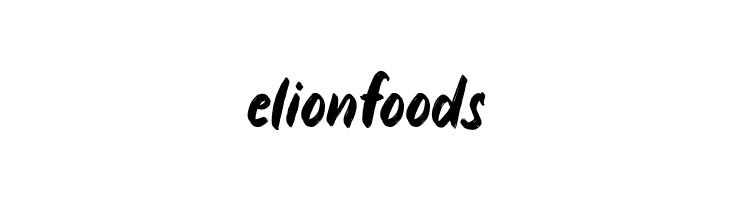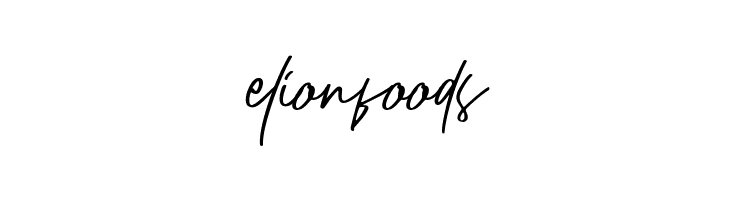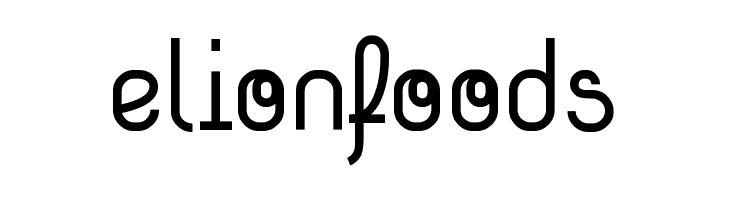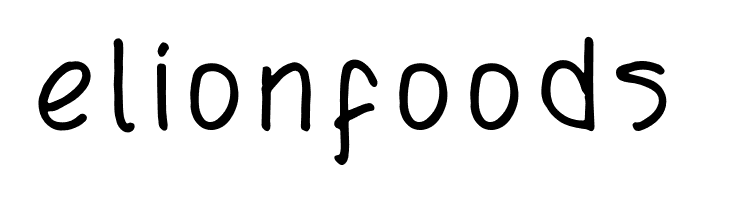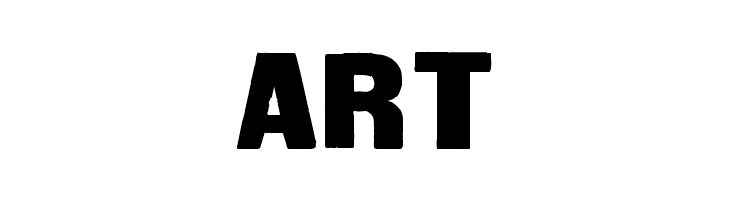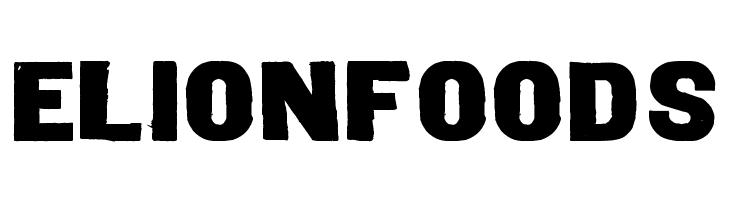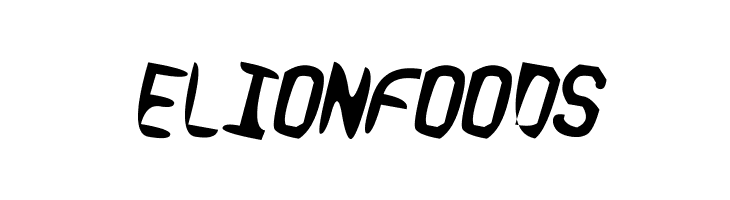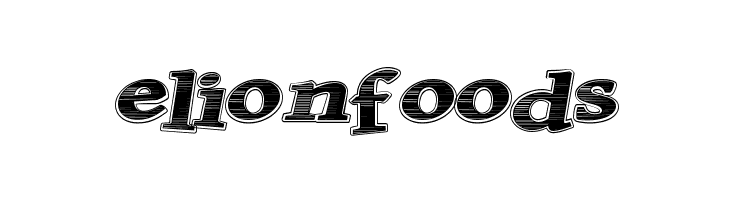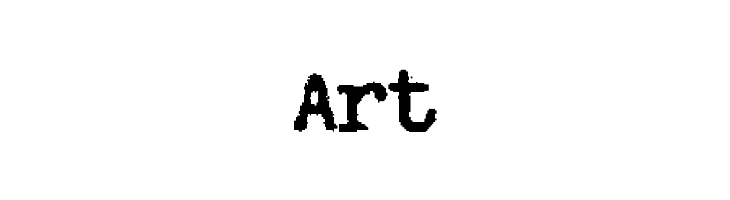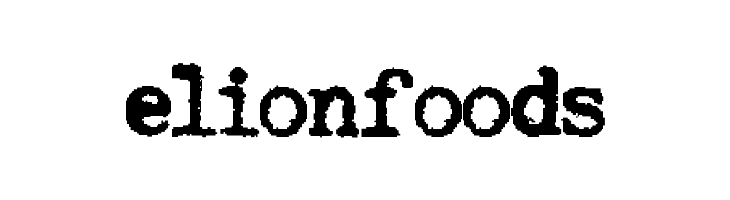
• Quetta Demo
A lively and expressive handwritten font with fluid, dynamic strokes.
• QuickSales
A bold, decorative font with a three-dimensional lined effect.
• QuietTyper
A bold, textured typewriter-style font with a vintage, handcrafted look.
• quiñók
A modern, rounded font with a playful and geometric style.
• Quirthy
A bold, expressive handwritten font with dynamic brush strokes.
• qxi Bold
A bold, distressed font with a rugged, vintage appearance.
• R
• rage
A chaotic, distressed font with jagged edges and an aggressive style.
• Rageon
A playful, informal handwritten font with a dynamic and lively feel.
• RageQuit_bold_easternblock_v1.2
A bold, angular font with an industrial, Eastern Bloc aesthetic.